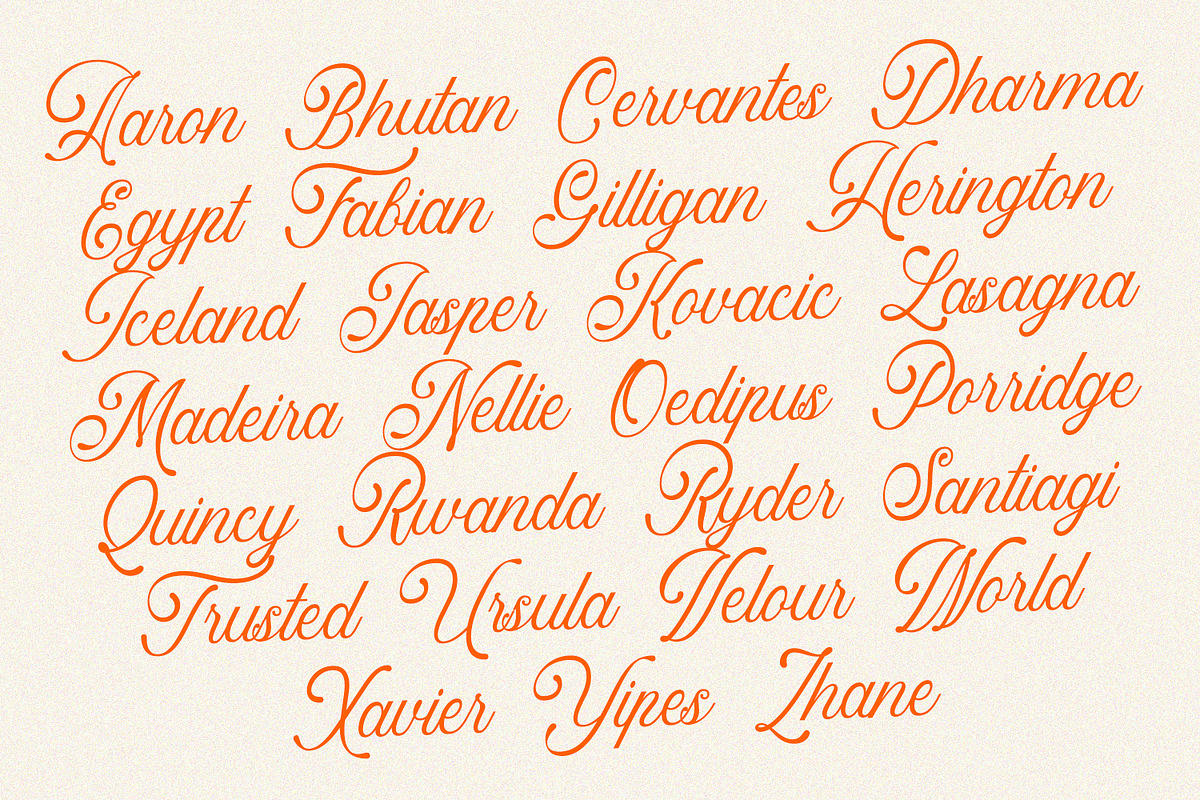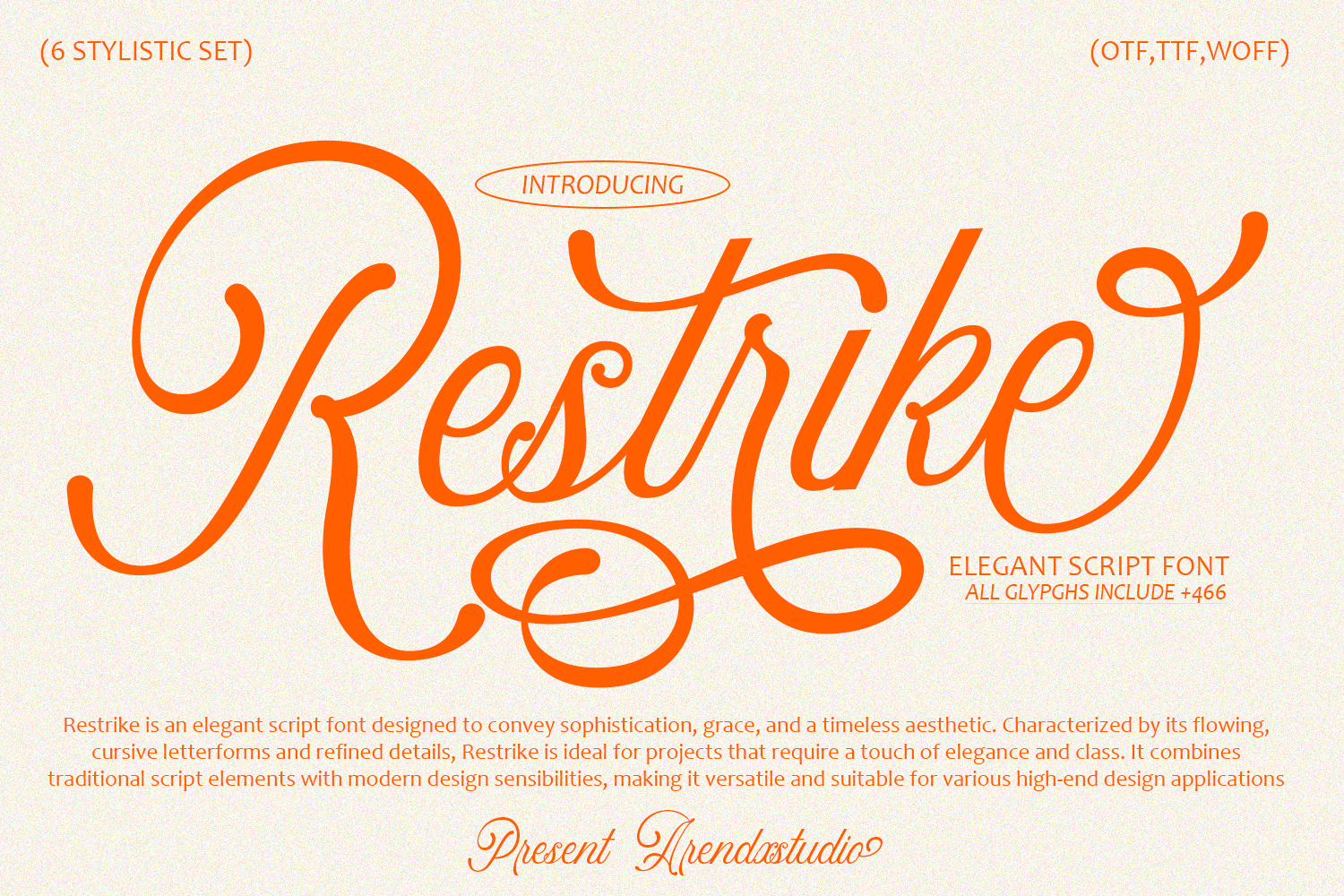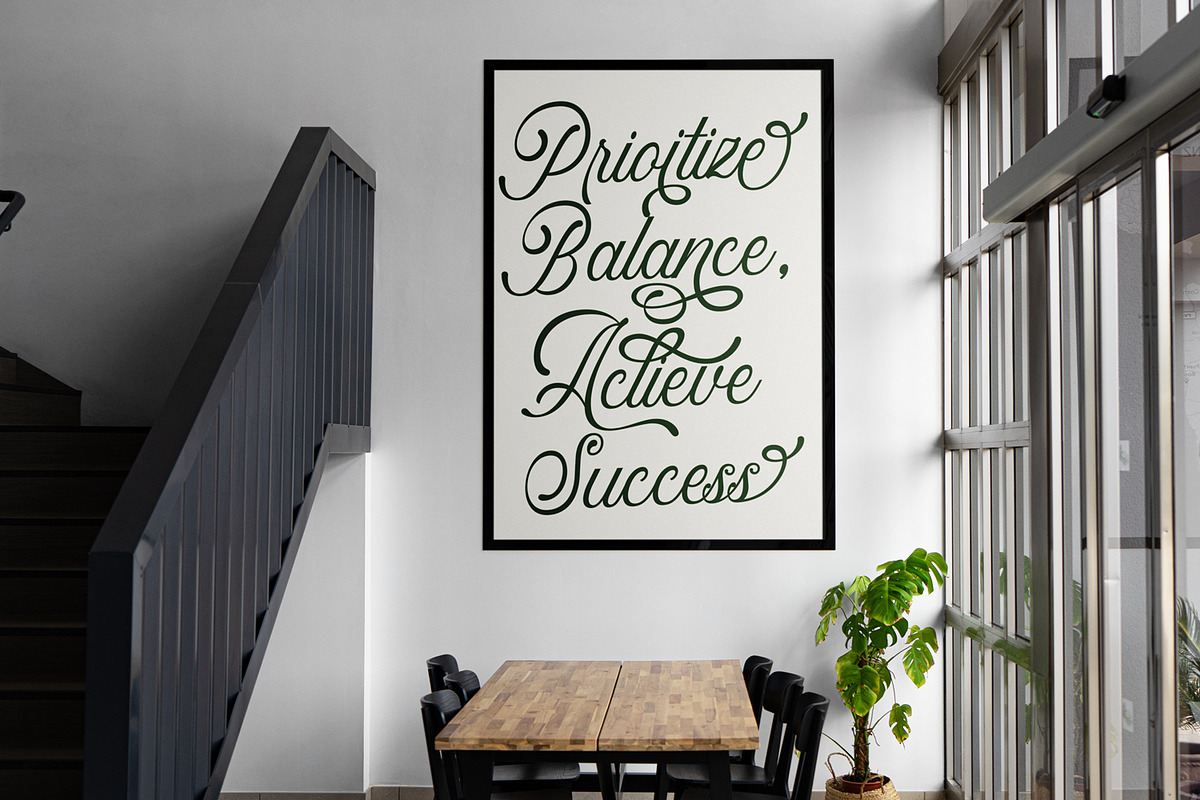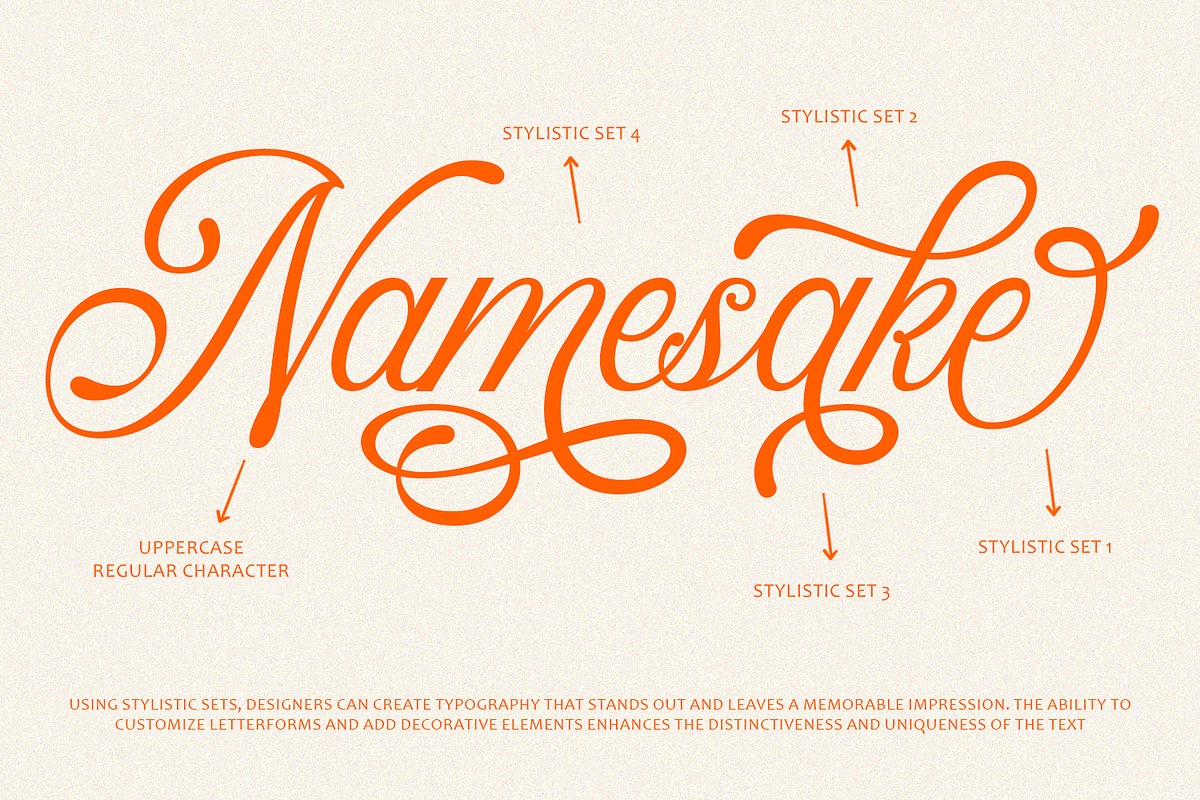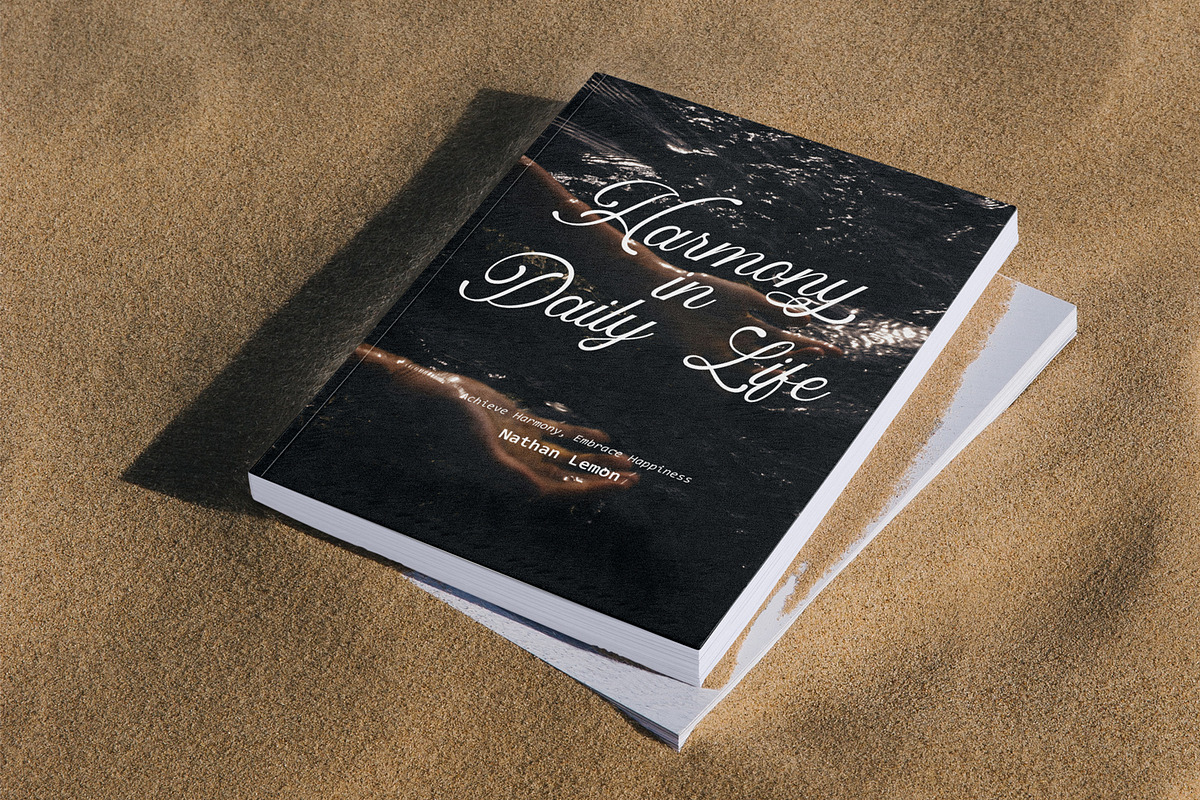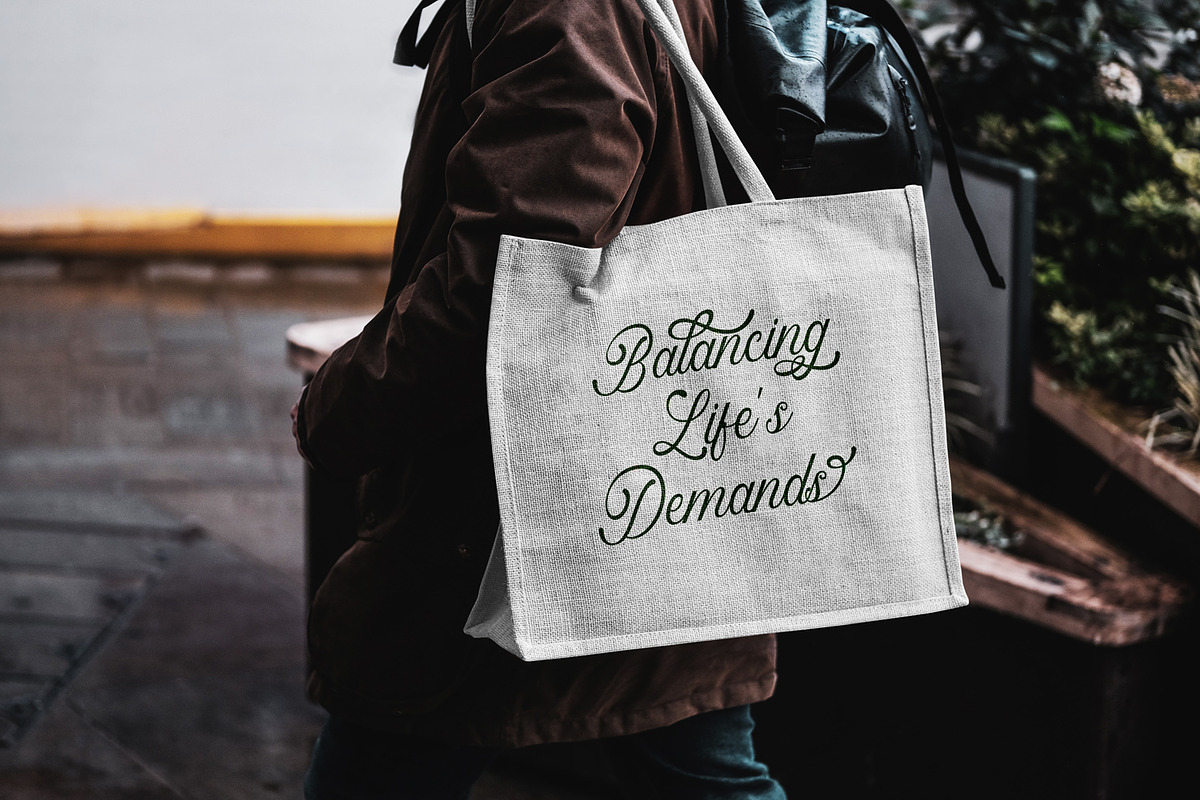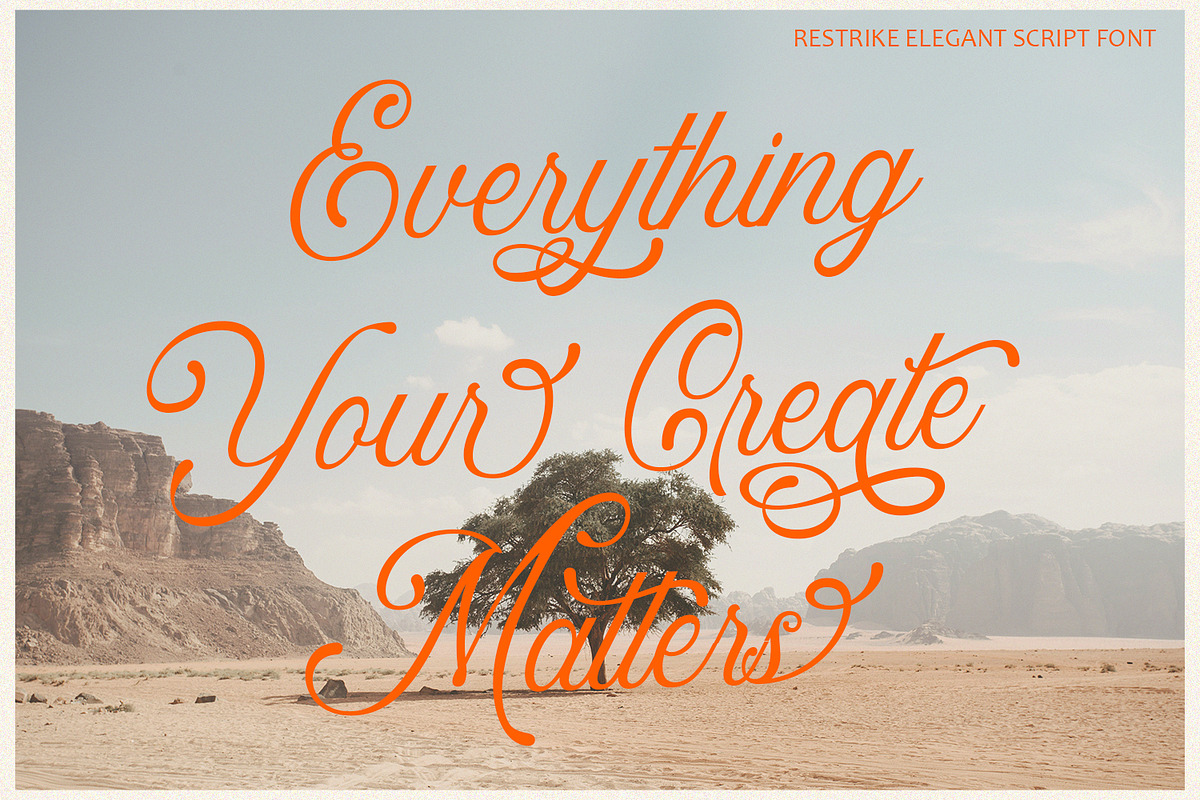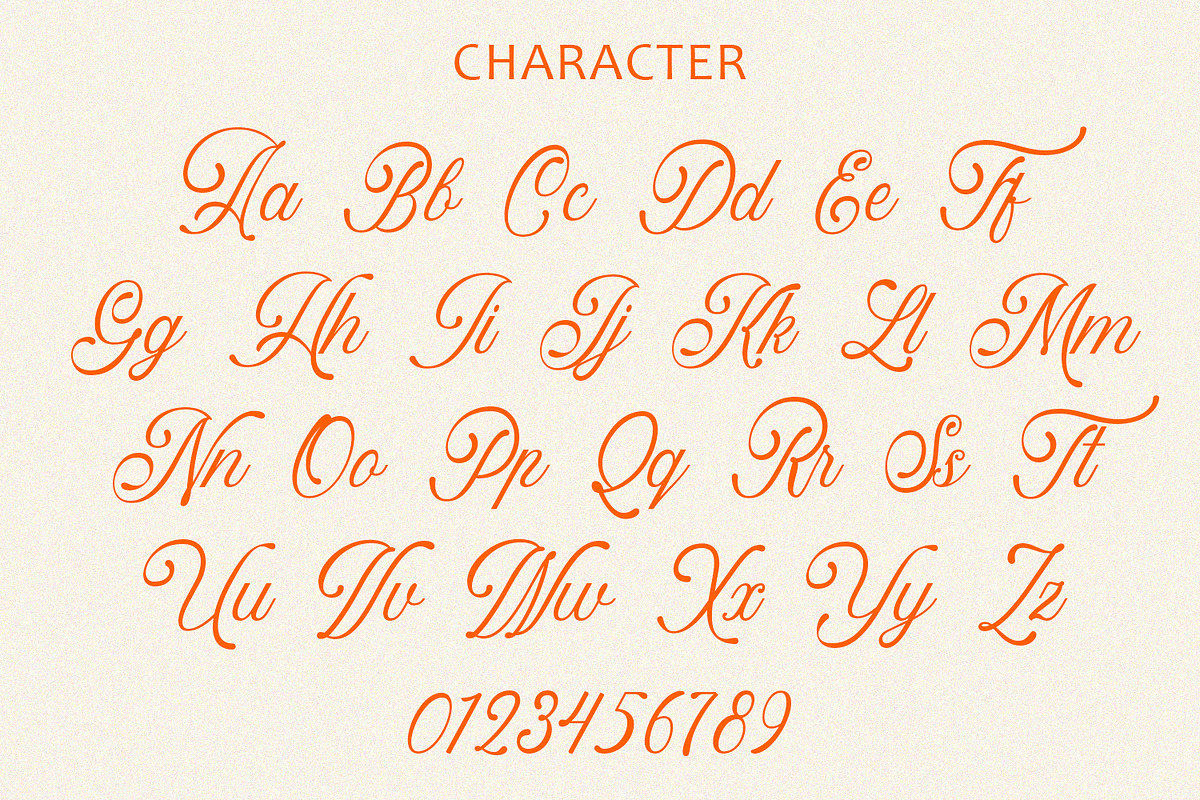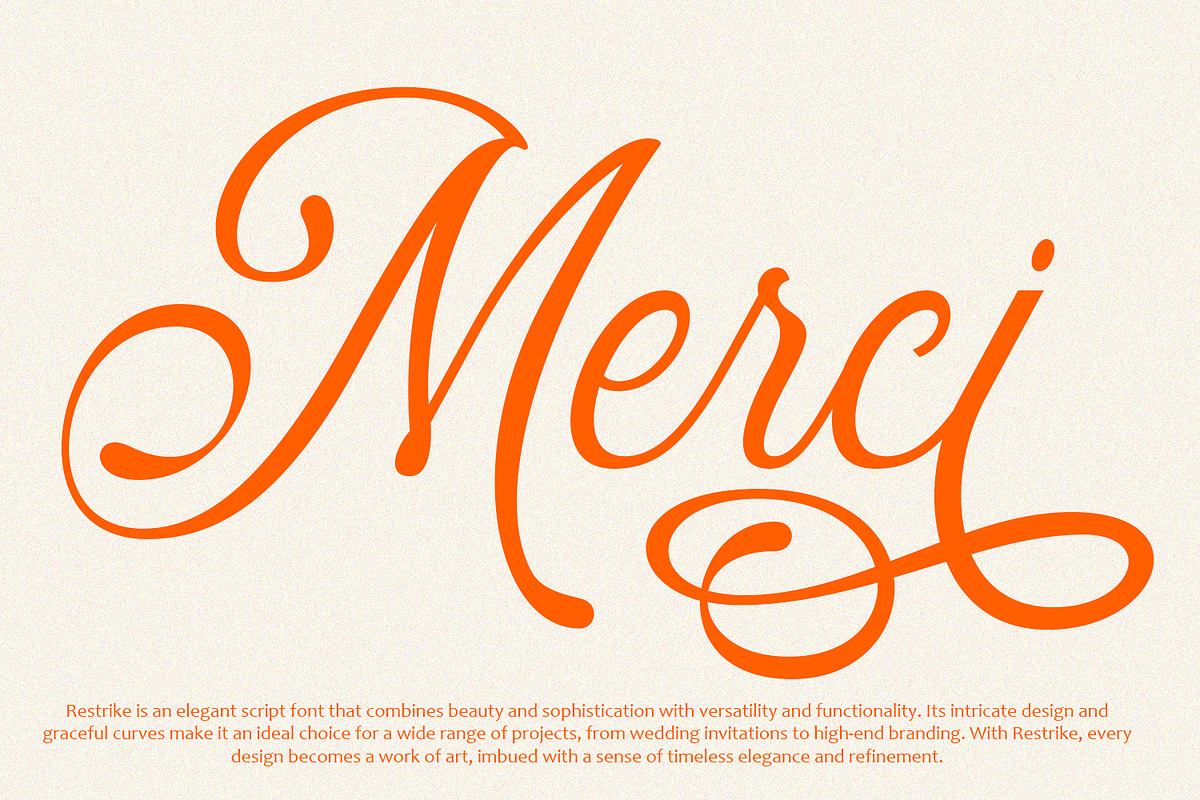
Restrike Elegant Script Font
### Explanation of Elegant Script Font: Restrike
Font Name: Restrike
Type: Elegant Script Font
#### Overview: "Restrike" is an elegant script font designed to convey sophistication, grace, and a timeless aesthetic. Characterized by its flowing, cursive letterforms and refined details, "Restrike" is ideal for projects that require a touch of elegance and class. It combines traditional script elements with modern design sensibilities, making it versatile and suitable for various high-end design applications.
#### Key Features of Restrike:
Elegant and Refined Design:
- Flowing Letterforms: The font features smooth, flowing letterforms that emulate the natural movement of handwriting, adding a personal and elegant touch to any design.
- Delicate Strokes: "Restrike" is designed with delicate and precise strokes that enhance its sophisticated appearance, making it perfect for upscale and formal projects.
Versatile Usage:
- Wide Range of Applications: Suitable for a variety of design contexts such as wedding invitations, branding, luxury packaging, high-end stationery, and more.
- Complementary Pairing: Works beautifully when paired with serif or sans-serif fonts, providing balance and enhancing the overall aesthetic of the design.
Extended Character Set:
- Comprehensive Glyphs: Includes a full set of uppercase and lowercase letters, numerals, punctuation, and special characters, ensuring flexibility and adaptability in design.
- Language Support: Offers extensive language support, making it accessible for international projects and diverse audiences.
Stylistic Alternates and Swashes:
- Customization Options: Comes with stylistic alternates and decorative swashes that allow designers to add unique flourishes and personalized touches to their text.
- Enhanced Creativity: These features enable greater creative freedom and can be used to create visually stunning typographic compositions.
High Legibility:
- Clear and Readable: Despite its ornate design, "Restrike" maintains high legibility, ensuring that the text is easy to read without sacrificing its elegant appearance.
- Balanced Design: The balance between thick and thin strokes contributes to readability while adding visual interest and style.
#### Benefits of Using Restrike:
Sophisticated Appeal:
- Timeless Elegance: "Restrike" adds a timeless elegance to any project, making it suitable for creating a luxurious and sophisticated look.
- Professional Quality: Ideal for professional applications, enhancing the visual appeal of corporate branding, marketing materials, and high-end product packaging.
Versatile and Adaptable:
- Wide Applicability: Its versatile design makes it suitable for a broad range of projects, from formal event invitations to elegant logo designs.
- Creative Freedom: The availability of stylistic alternates and swashes provides designers with the tools to customize and experiment with their designs, ensuring unique and personalized outcomes.
Enhanced Visual Impact:
- Eye-Catching Design: The elegant and flowing design of "Restrike" captures attention and adds a touch of sophistication to any text, making it memorable and visually appealing.
- Refined Details: The refined details and delicate strokes contribute to a high-quality and polished look, elevating the overall design.
Improved Readability:
- Clear Typography: "Restrike" ensures that even with its ornate design, the text remains clear and readable, making it practical for both display and body text.
- Balanced Aesthetics: The balance between decorative elements and readability ensures that the font enhances rather than detracts from the overall design.
### Conclusion
"Restrike" is an elegant script font that combines flowing letterforms, delicate strokes, and refined details to create a sophisticated and timeless aesthetic. Its versatile design, extensive character set, and customization options make it suitable for a wide range of high-end design projects. Whether used for wedding invitations, luxury branding, or elegant packaging, "Restrike" adds a touch of class and elegance, ensuring your designs are both visually stunning and memorable.